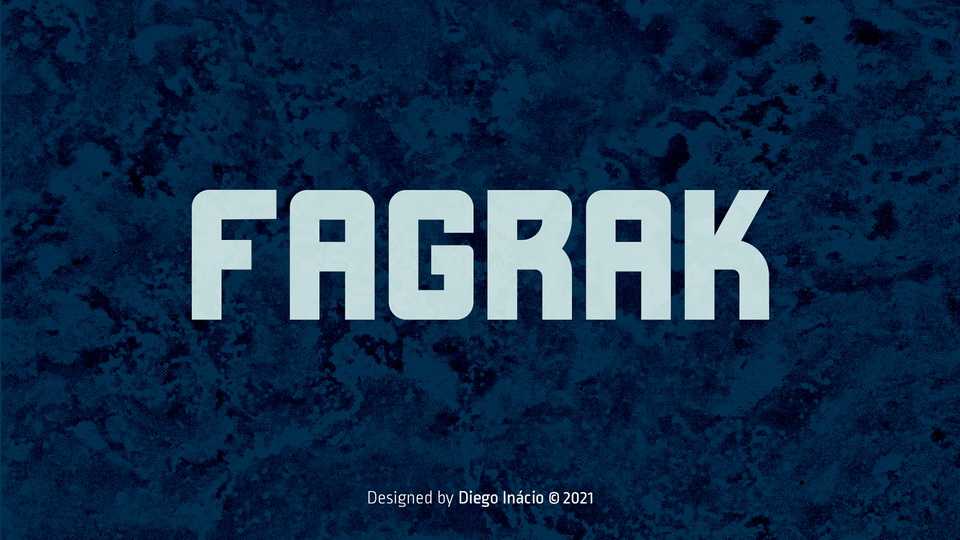
Download Fagrak font, an impressive and memorable typeface, available in Bold and Inline versions. This typography is perfect for logos, posters and social media posts.
Designer: Diego Inácio